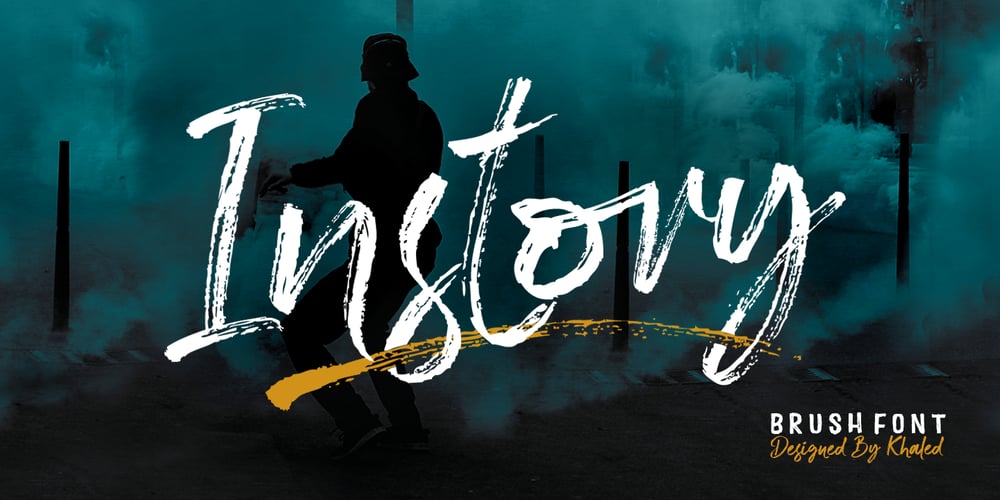
Instory Font Family was designed by Khaled and published by Akifatype. Instory contains 2 styles and family package options. Instory is a new modern brush font with an irregular baseline, a contemporary approach to design, handmade natural and suitable for use in title design such as clothing, invitations, book titles, stationery designs, quotes, branding, logos, T-shirts, packaging designs, posters, and more. Complete with uppercase and lowercase letters, as well as multi-lingual support, numbers, punctuation, Instory also provides some ligatures and swash. Instory is coded with PUA Unicode, which allows full access to all the extra characters without having special designing software. Mac users can use Font Book , and Windows users can use Character Map to view and copy any of the extra characters to paste into your favorite text editor/app.